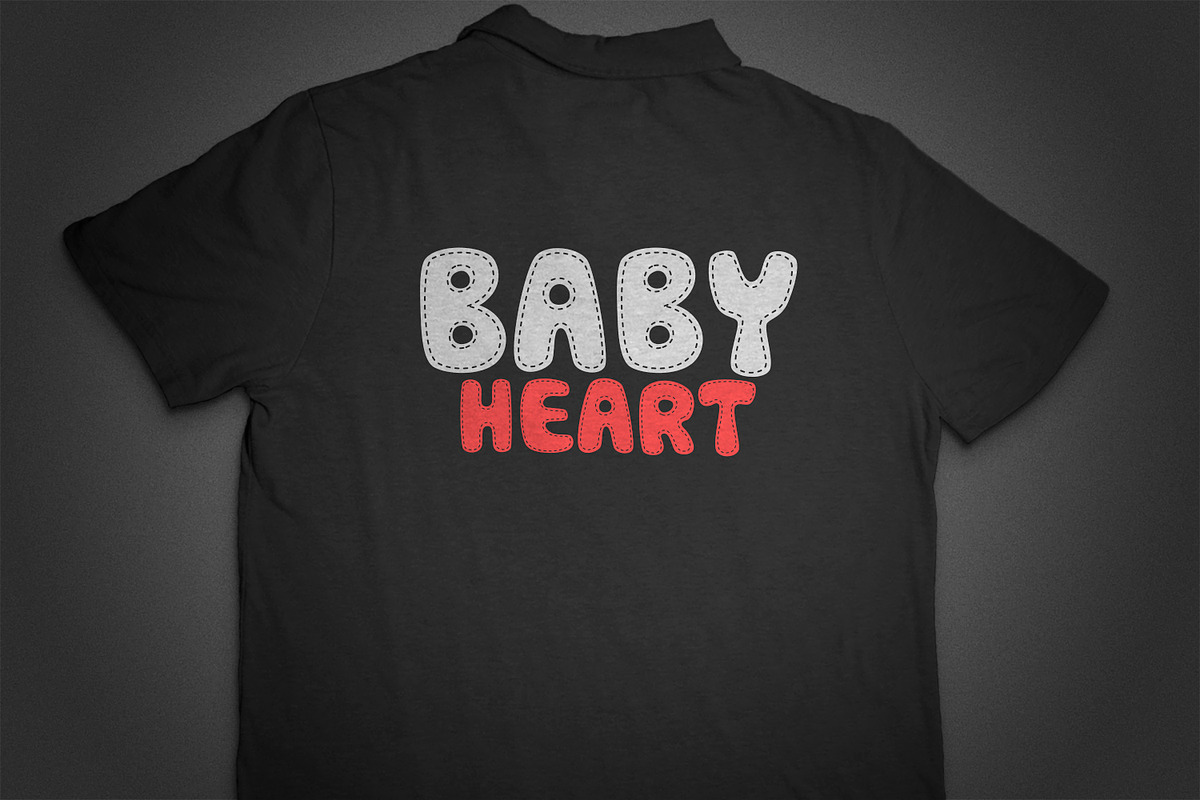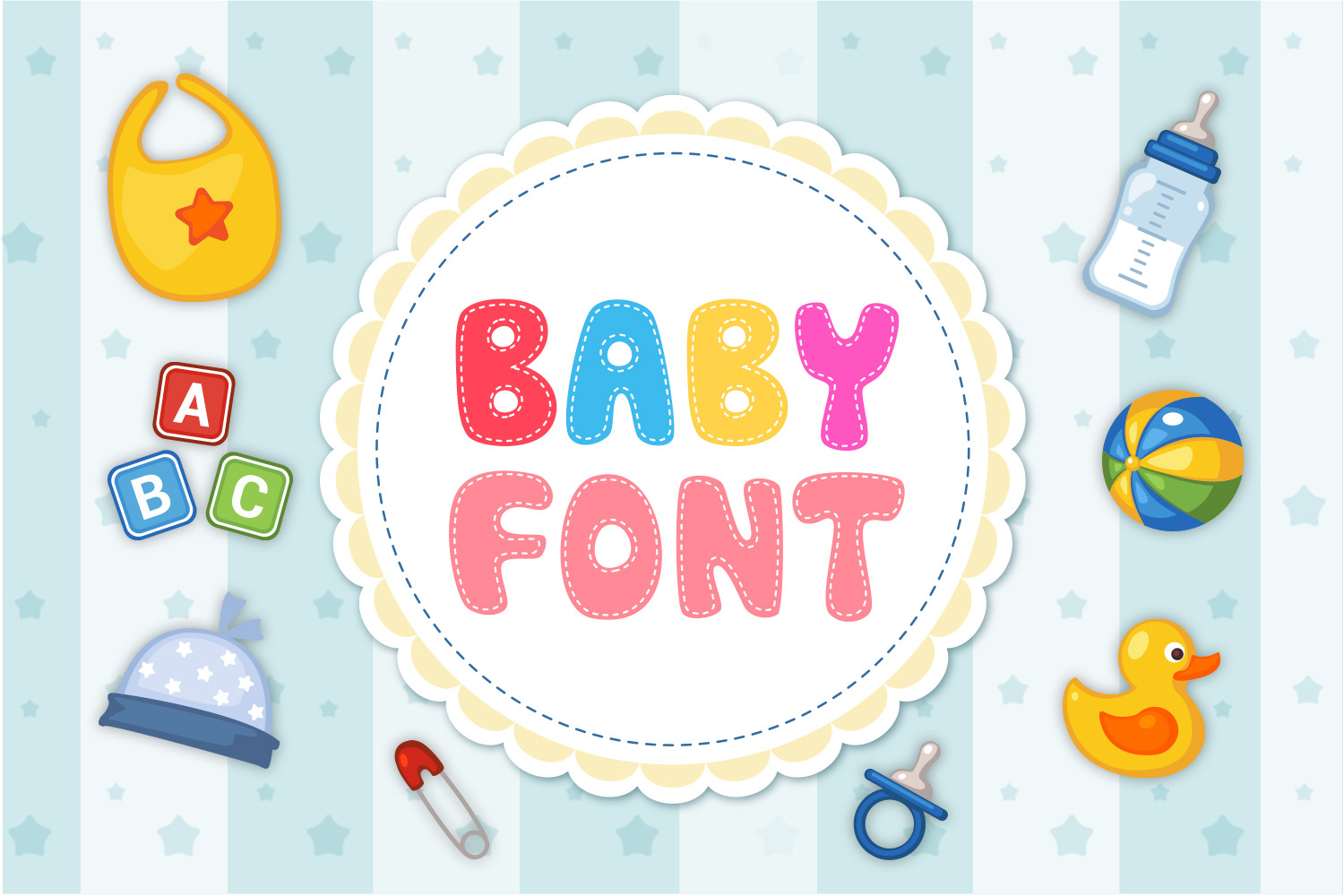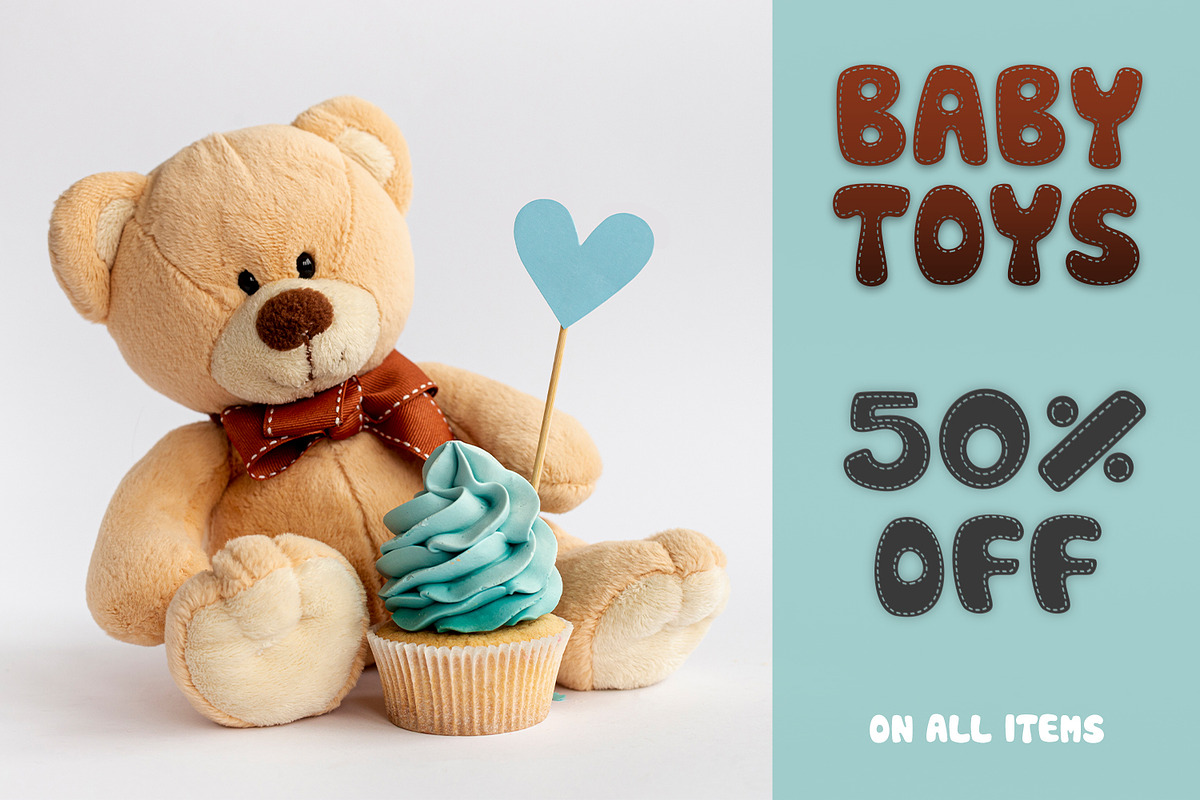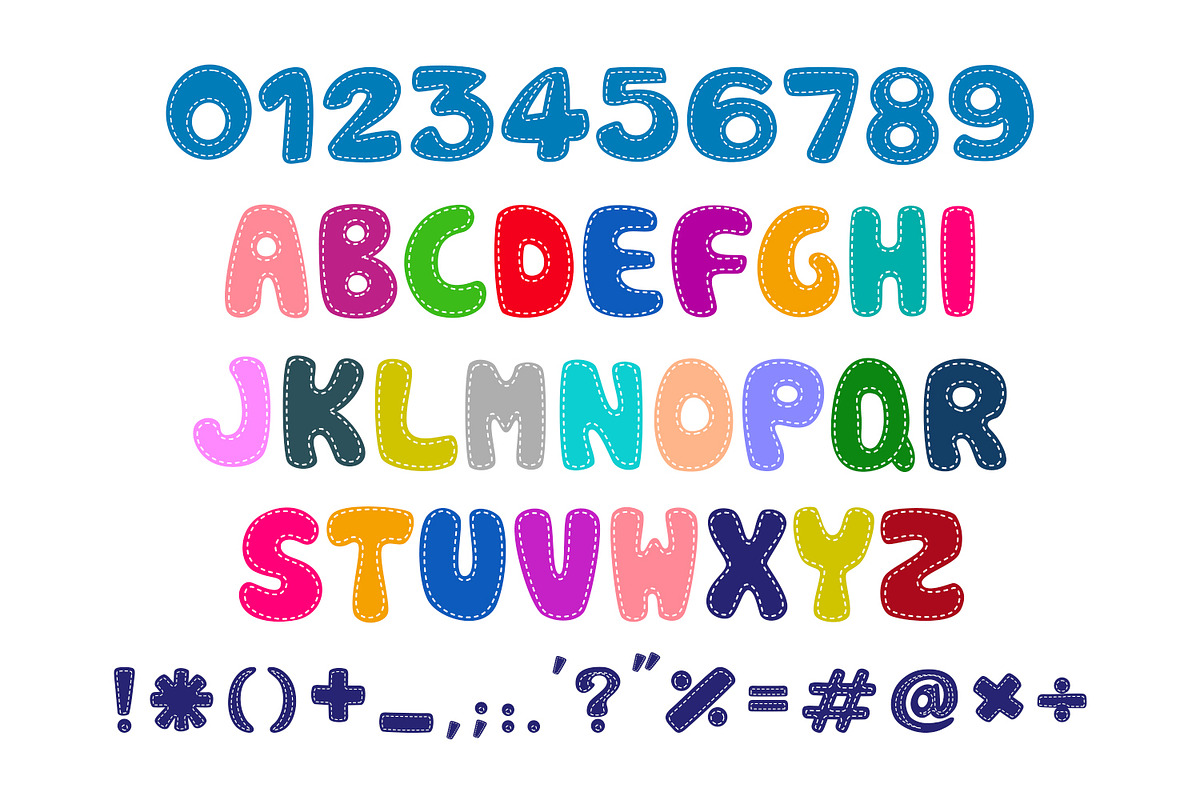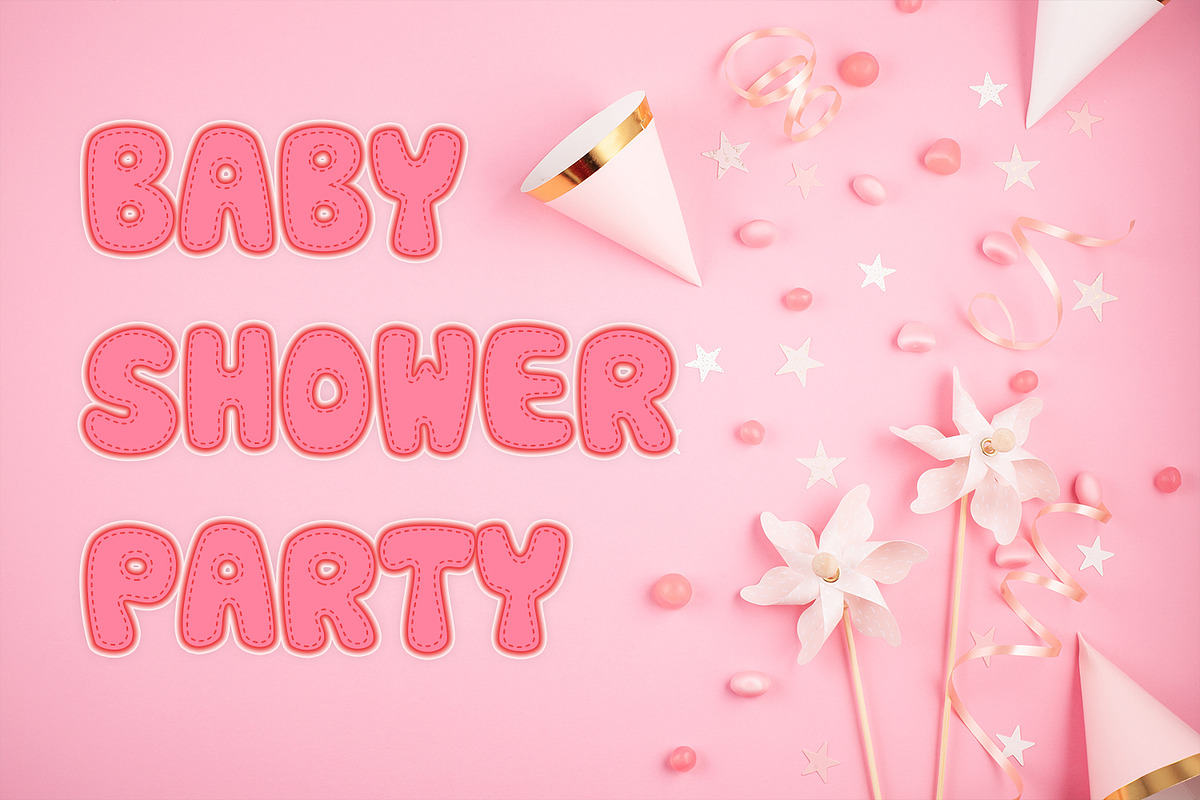
Baby Font
Baby is a cute and quirky display font. It will add an incredibly joyful touch to your designs. Add this beautiful display font to each of your creative ideas and notice how it makes them stand out!